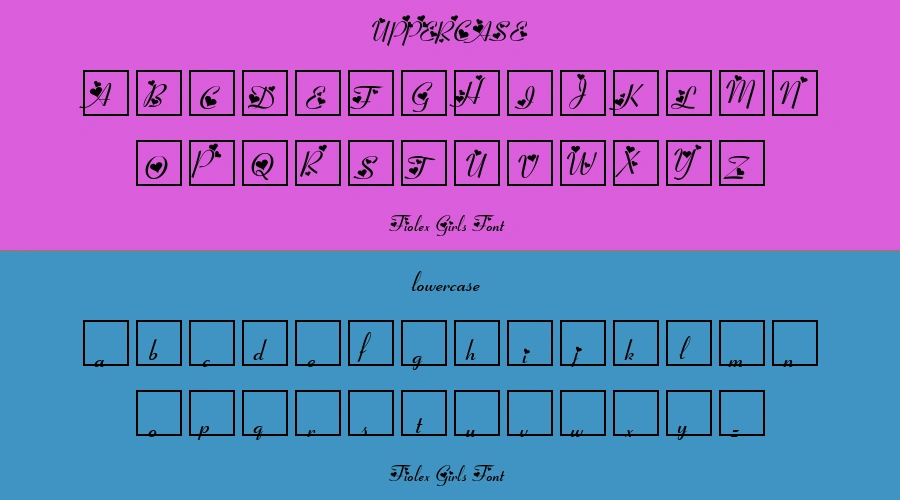
About Fiolex Girls Font
Fiolex Girls Font represents a sophisticated approach to type design, balancing ligatures with distinctiveness. Perfect for brand identities, this font family showcases impressive legibility and adaptability throughout its character set. Designers appreciate its versatility and reliability.
Designers will appreciate nuanced touches including balanced proportions and period ligatures, adding sophistication to any project. These features become apparent in business cards, where small cap rendering matters most. The careful treatment of counter shape and design heritage ensures optimal performance.